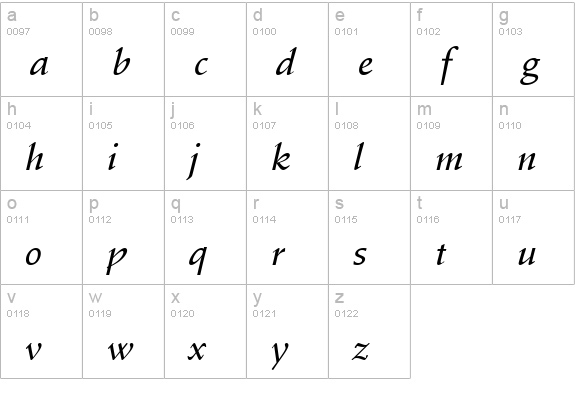
SchneidlerAmaTMed Italic Font Details
SchneidlerAmaTMed Italic is a distinctive, italic variant in the SchneidlerAmaTMed typeface family \xE2\x80\x94 well suited to design and typography projects.
SchneidlerAmaTMed Italic font is a truly remarkable typeface that effortlessly combines elegance with a touch of playfulness. Its gracefully slanted letterforms exude a sense of sophistication and style, making it the perfect choice for projects that require a touch of refinement. The delicate curves and subtle variations in stroke width give SchneidlerAmaTMed Italic font a distinctive and unique personality. Each character is expertly crafted, showcasing the skill and artistry of its designer. The flowing italic design adds a sense of movement and dynamism to any text, making it a versatile choice for a wide range of design projects. But what sets SchneidlerAmaTMed Italic font apart is not just its stunning aesthetics; it is also freely available to download at FontsMarket.com. This means that designers, creatives, and enthusiasts alike can access this exceptional typeface without any cost. Whether you're working on a personal project or a commercial endeavor, SchneidlerAmaTMed Italic font is a valuable asset that won't break the bank. With its extensive character set, SchneidlerAmaTMed Italic font is suitable for a variety of applications. From elegant wedding invitations and sophisticated branding to editorial design and web graphics, this font will elevate any design to new heights. Its versatility makes it a must-have for both seasoned professionals and aspiring designers alike. So why wait? Take advantage of the opportunity to enhance your design work with SchneidlerAmaTMed Italic font. Download it for free at FontsMarket.com and let your creativity soar. Experience the beauty and versatility of this remarkable typeface and bring a touch of elegance to your projects.